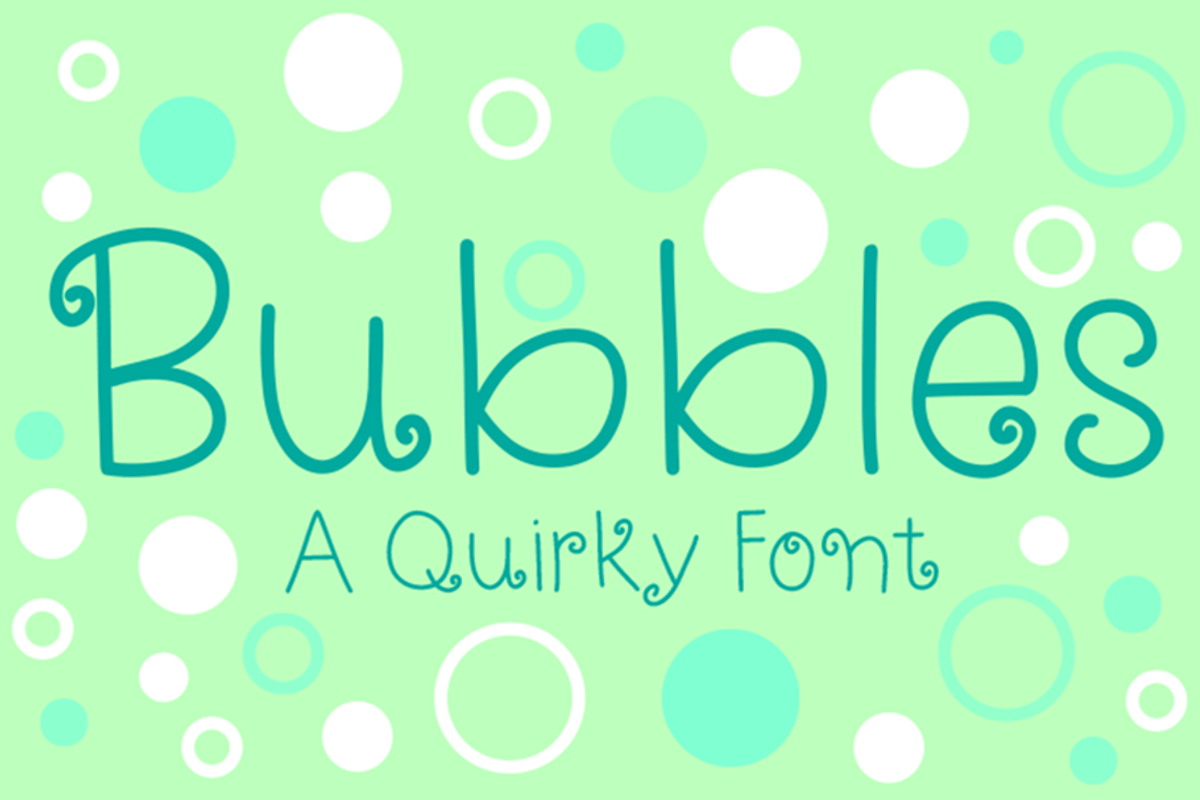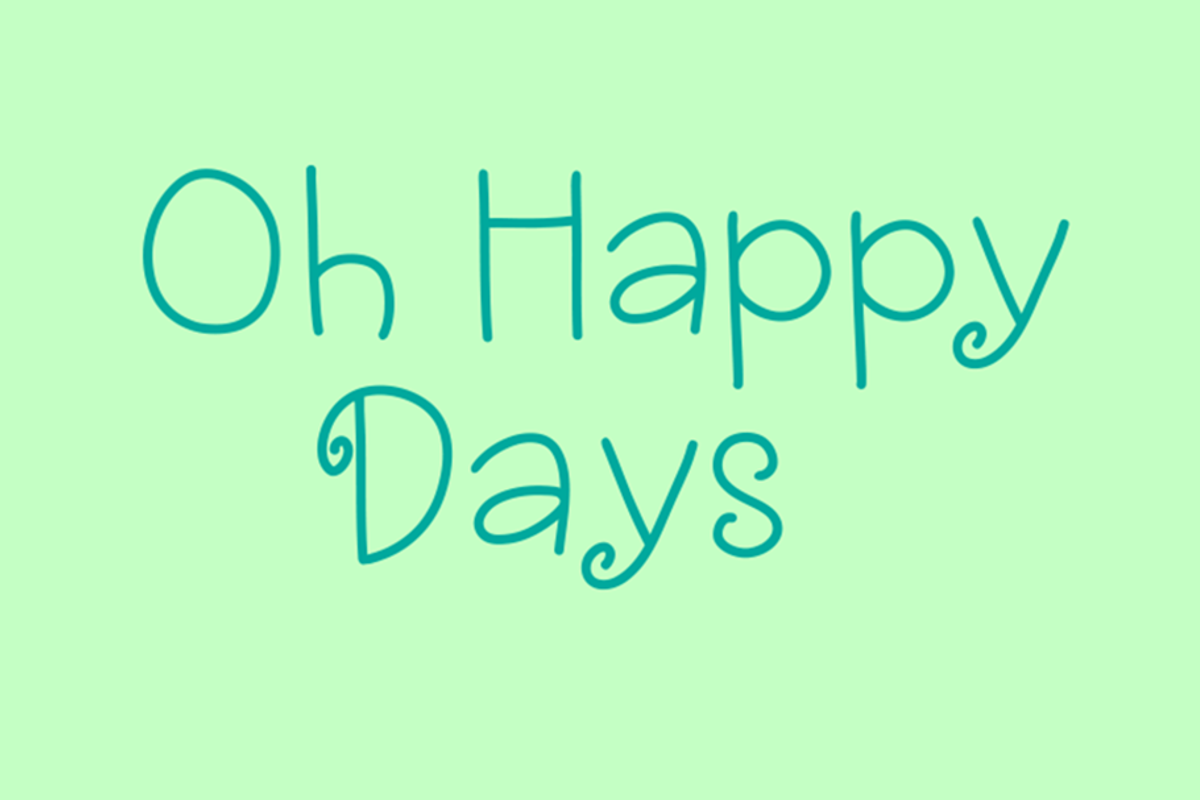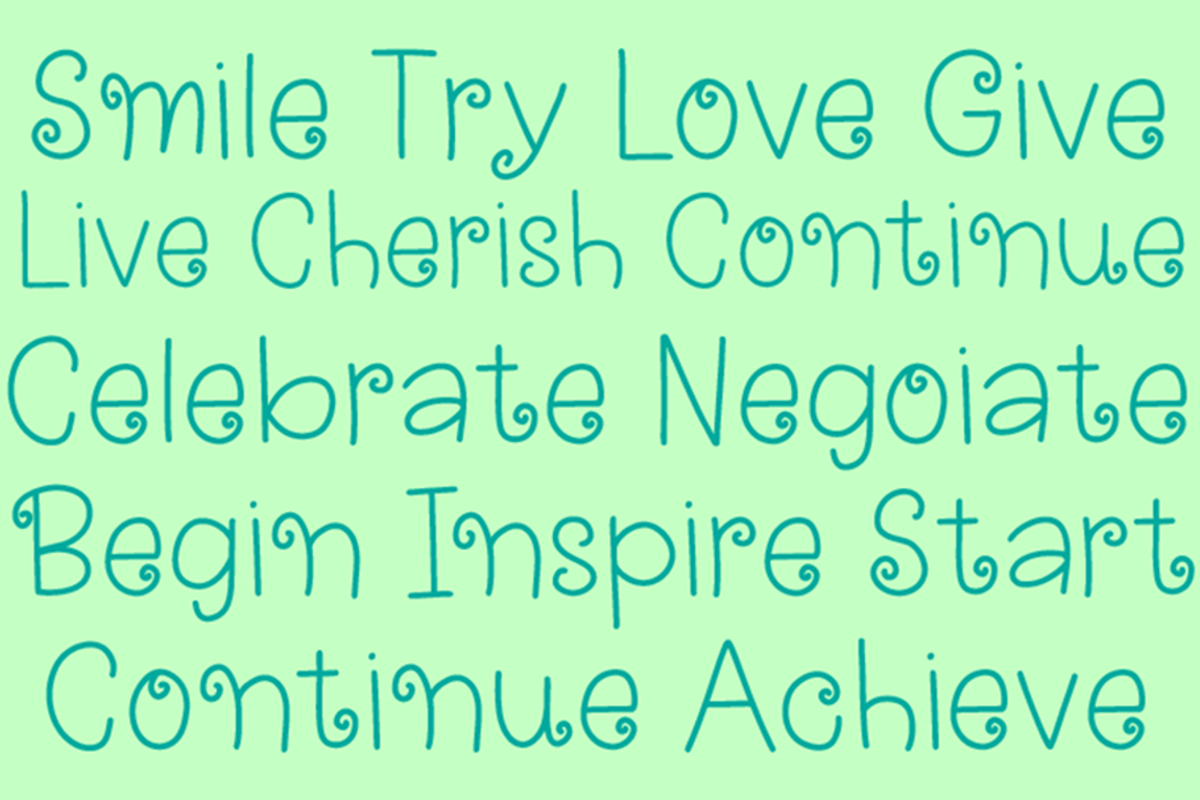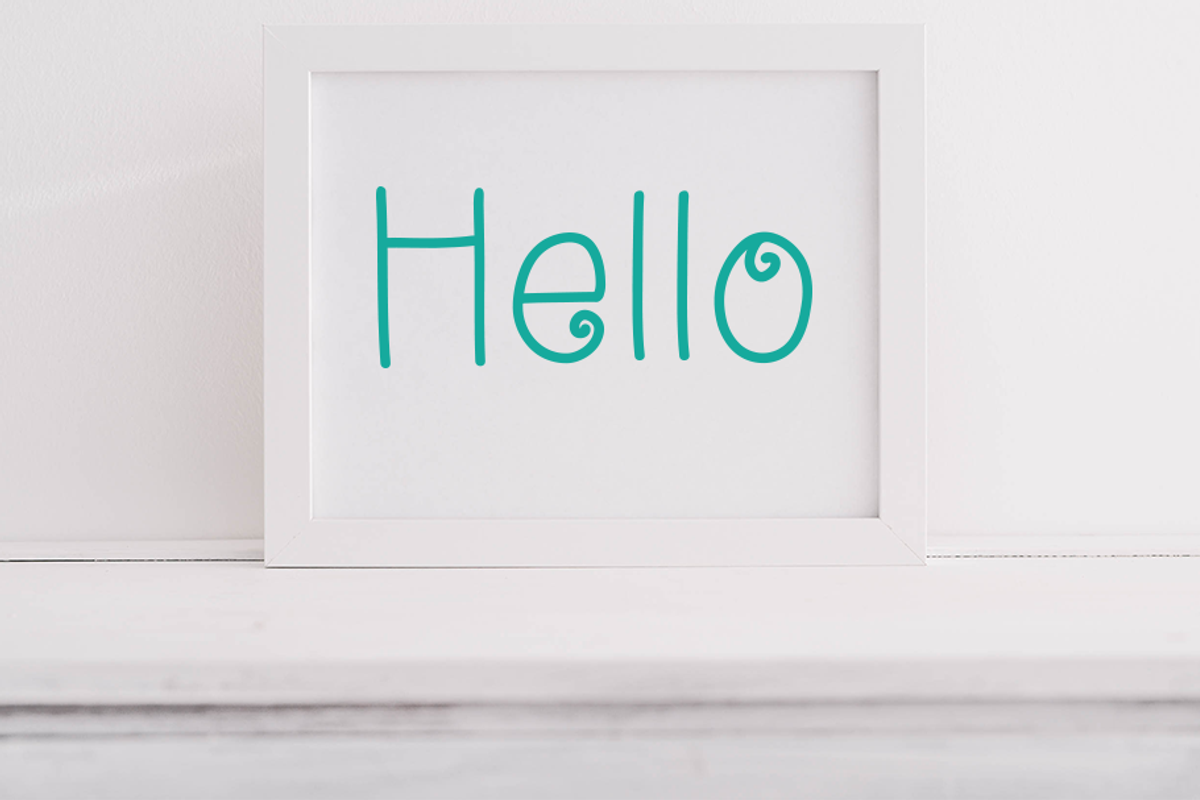
Bubbles
This quirky handwritten font is full of personality, fun and spunk. It was created on the iPad with a lot of love and care. You can use it to create logos, branding, SVG'S, T-Shirts, Mugs, Surface pattern design, websites and much much more. It is available in OTF format.